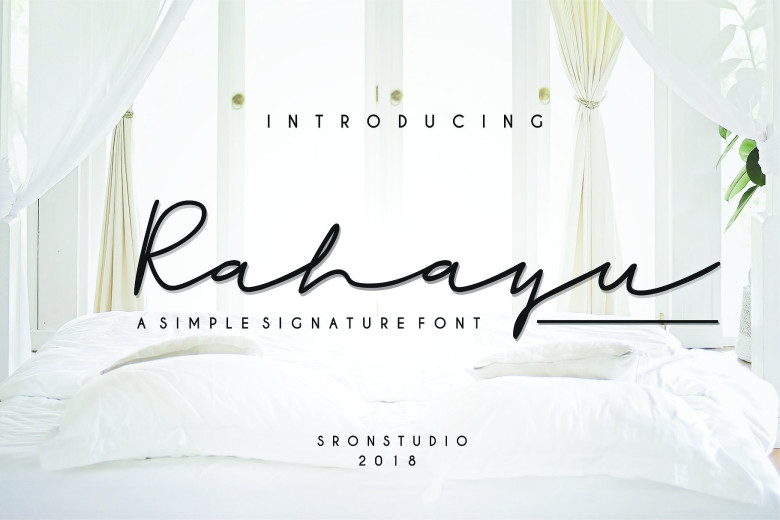
Rahayu Signature Font
Introducing – Rahayu is a signature font with a handwritten script style that makes this font looks elegant, natural, stylish and perfect for any projects that need signature taste and impeccable design. Add a lively, handmade touch to your branding, crafting projects, wedding stationery, and beyond!